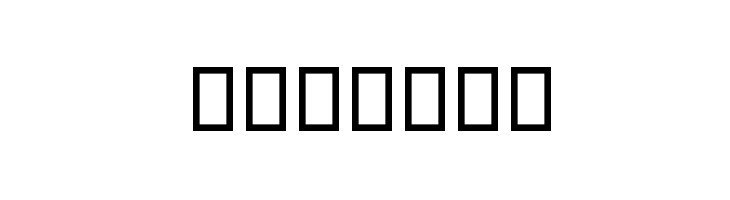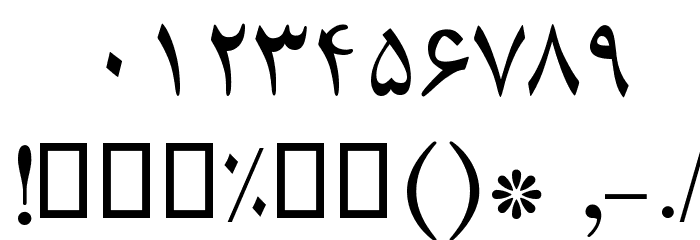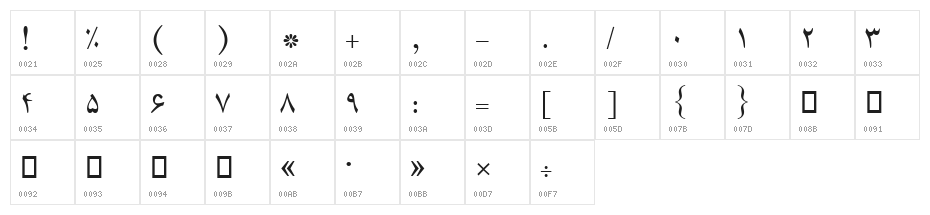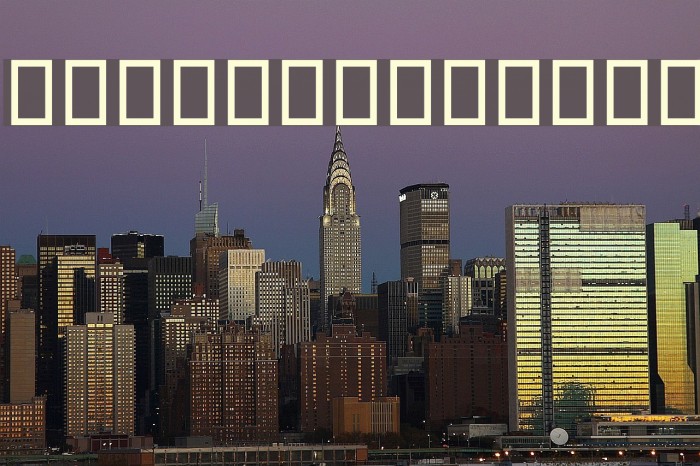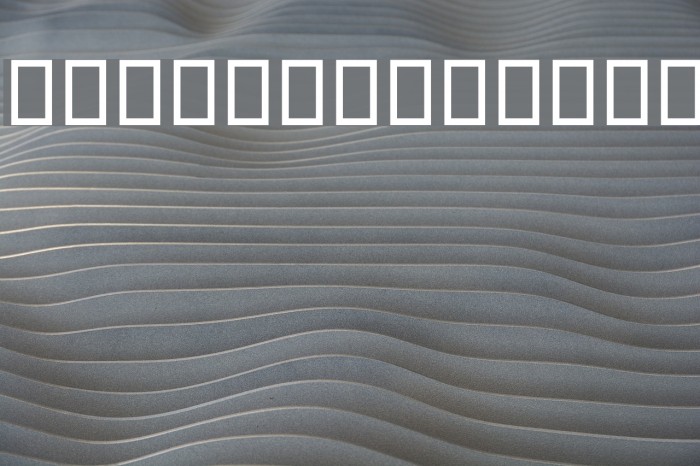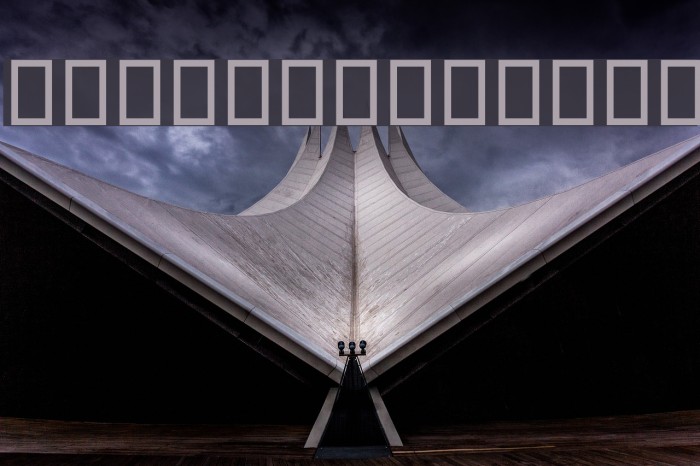
Compset Font
Compset Description
This font features a unique and artistic design, characterized by its flowing and dynamic strokes. The characters exhibit a calligraphic style, with elegant curves and a sense of movement that adds a touch of sophistication. The numerals and special characters maintain this fluidity, ensuring a cohesive look throughout. The font's distinct style makes it suitable for creative and expressive projects, where a touch of elegance and flair is desired. Its artistic nature lends itself well to designs that aim to capture attention and convey a sense of creativity.
COMPSET UPPERCASE
COMPSET LOWERCASE
COMPSET OTHER CHARS
| Use Case | Logos, Invitations, Artistic Posters |
| Proposed Projects | Ideal for invitations, artistic posters, branding, and creative projects requiring an elegant touch. |